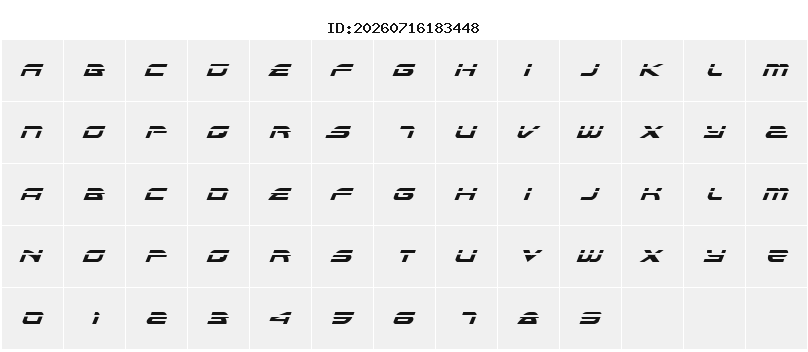
Alexis Laser Italic Preview
• Font Name: Alexis Laser Italic
• Font Style: Laser Italic
• Full Font Name: Alexis Laser Italic
• PostScript Name: AlexisLaserItalic
About Alexis Laser Italic.ttf
Alexis Laser Italic.ttf is a modern, elegant sans-serif font designed for ultimate readability and visual harmony. Perfect for branding, headlines, web design, and print materials.